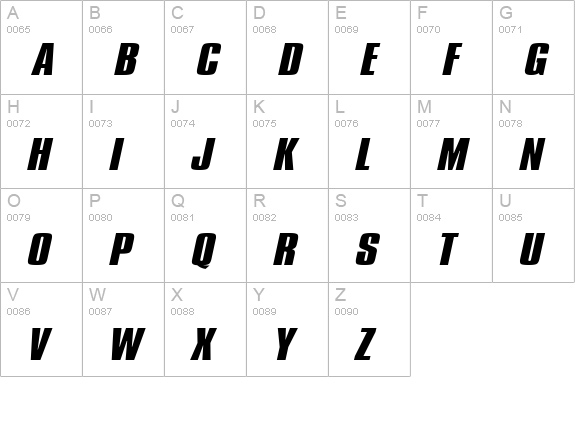
Commador Extended Italic Font Details
Commador Extended Italic is a distinctive, extended-width, italic variant in the Commador typeface family \xE2\x80\x94 well suited to design and typography projects.
The Commador Extended Italic font is a sleek and modern typeface that exudes elegance and sophistication. Its italicized design adds a touch of flair and style to any text or design project. With its extended characters and smooth curves, this font is perfect for creating eye-catching headers, titles, and logos. What makes Commador Extended Italic font even more appealing is that it is completely free to use. You can download this stunning font at FontsMarket.com without any cost, making it easily accessible for all your creative needs. Whether you're designing a website, crafting a brochure, or working on a branding project, Commador Extended Italic font is sure to elevate your designs and leave a lasting impression. Download it today and start adding a touch of sophistication to your projects!